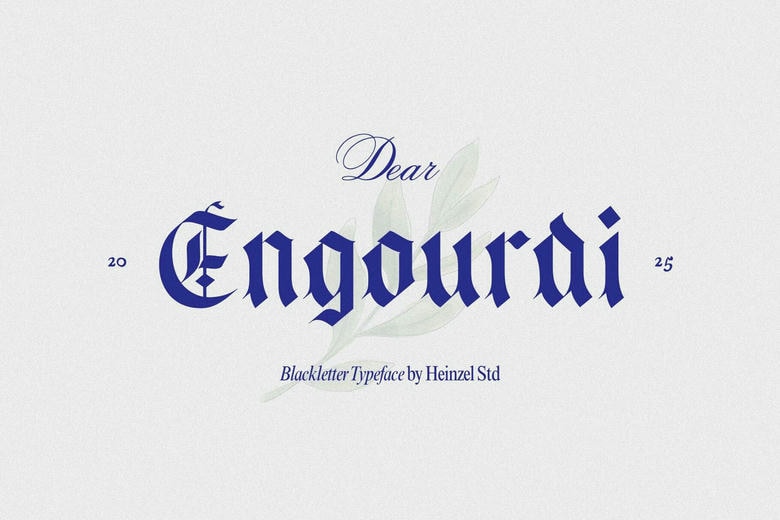
Engourdi Font
Engourdi is a well-decorated blackletter font, but one that still takes on that classical medieval inspired feel, yet in a modern slant. It has sharp lines, complex lines and proportions that make it ideal in branding, logos, packaging, posters, book covers, invitations and editorial layouts. Engourdi brings an element of poshness and commandeering to a design and is perfect to use in luxury branding, vintage work and artistic design.
Designed in a diverse and highly visual manner, this font is very adaptable to be used in both prints and digital designs. The irresistible beauty of the Engourdi Blackletter Typeface will help you make your creative vision a reality.
Engourdi Blackletter Font